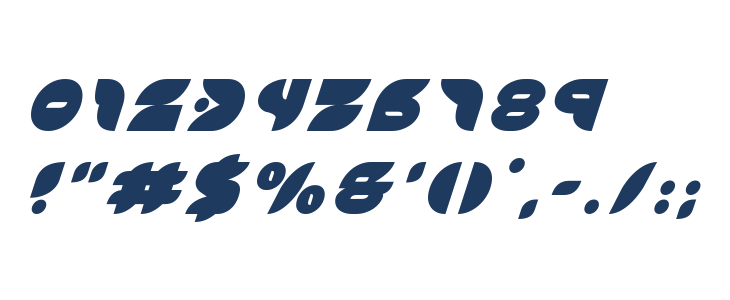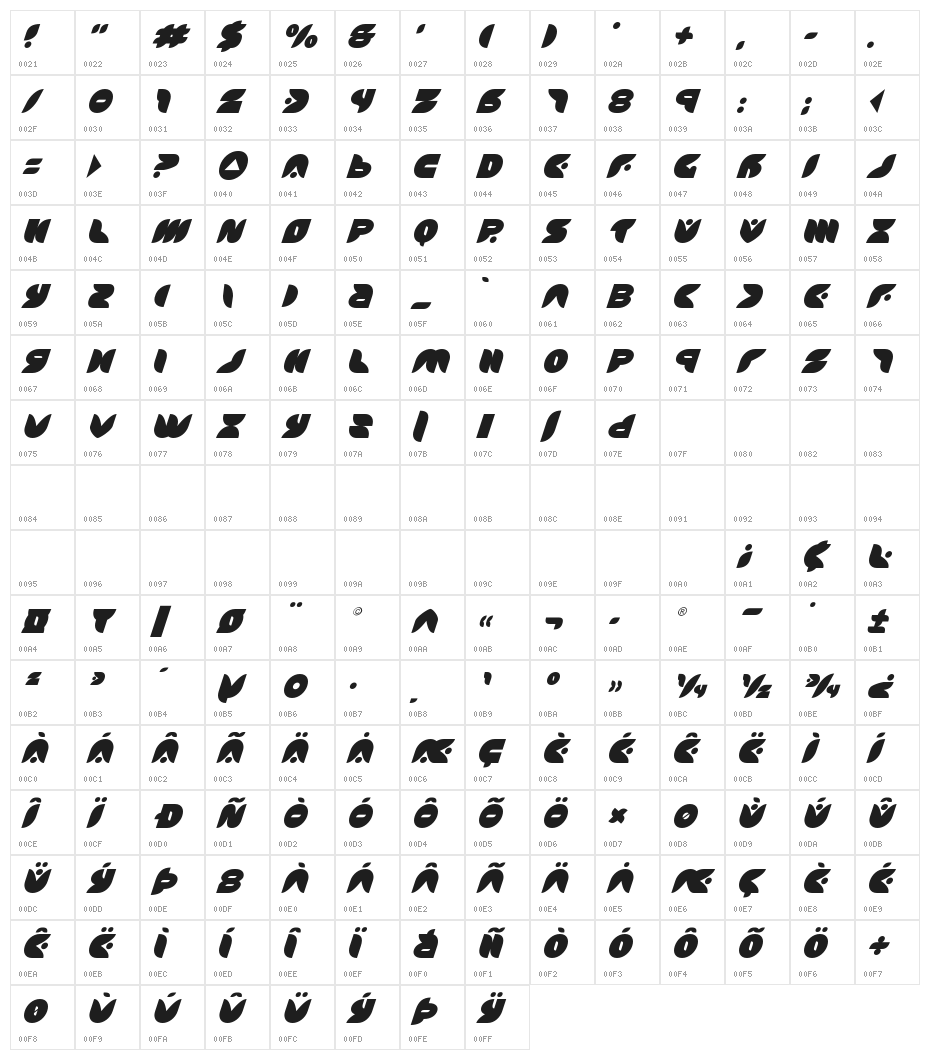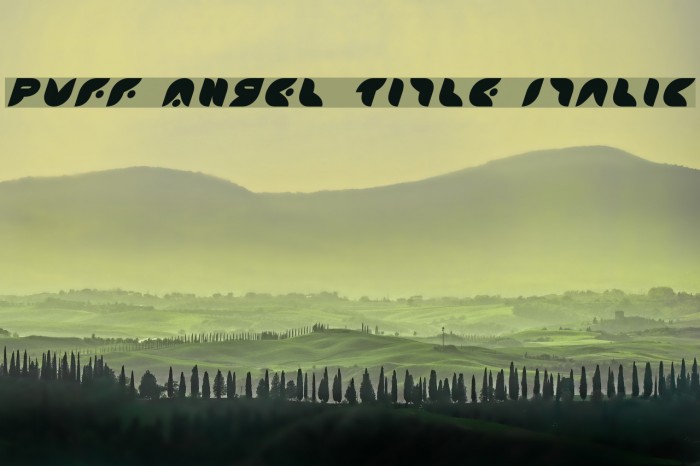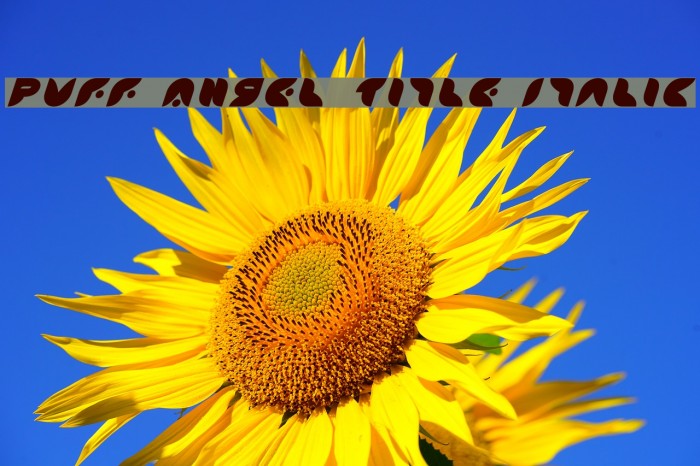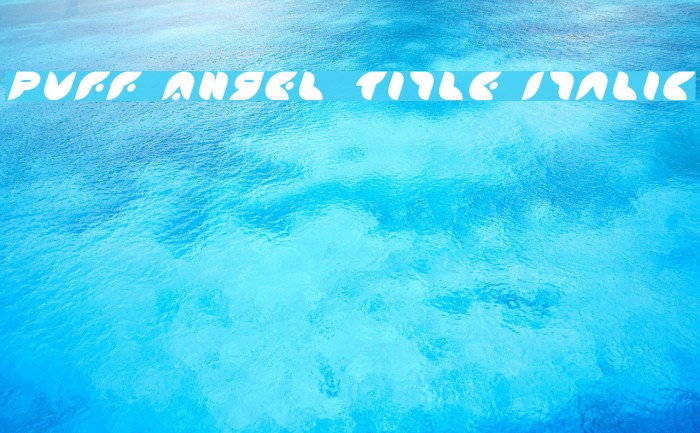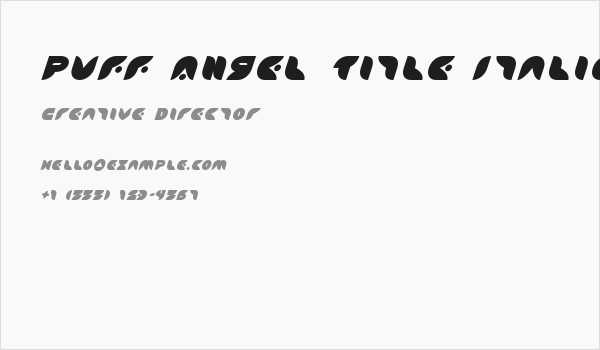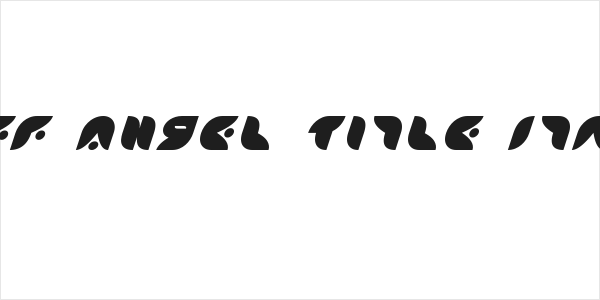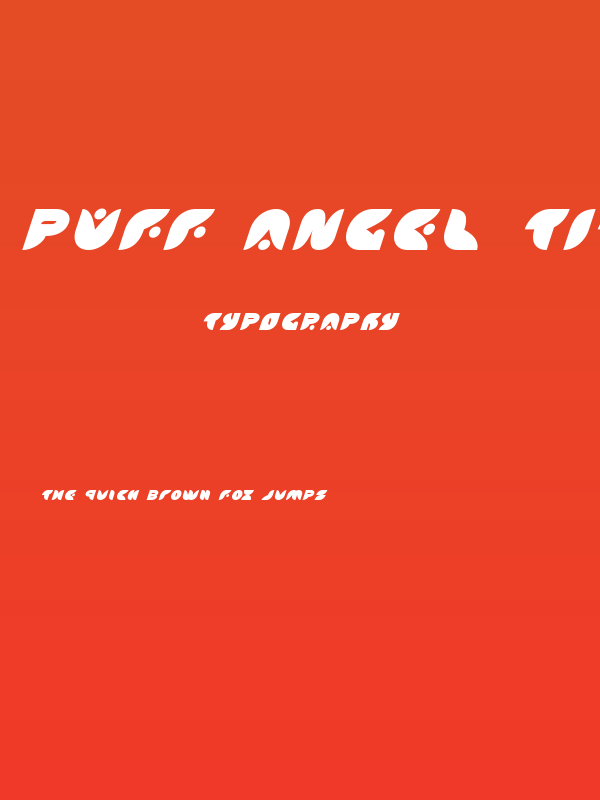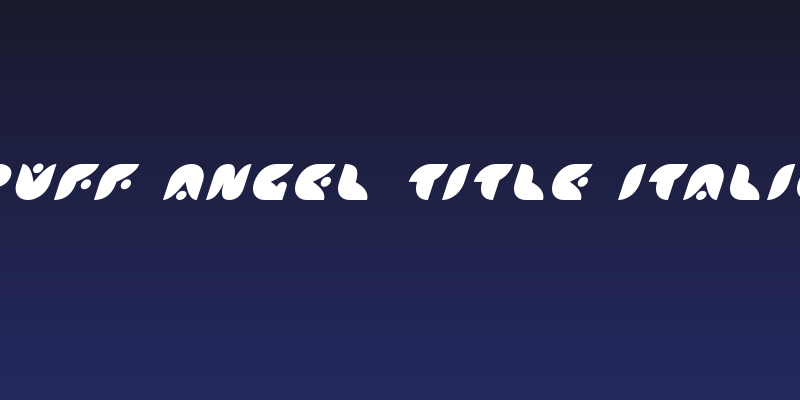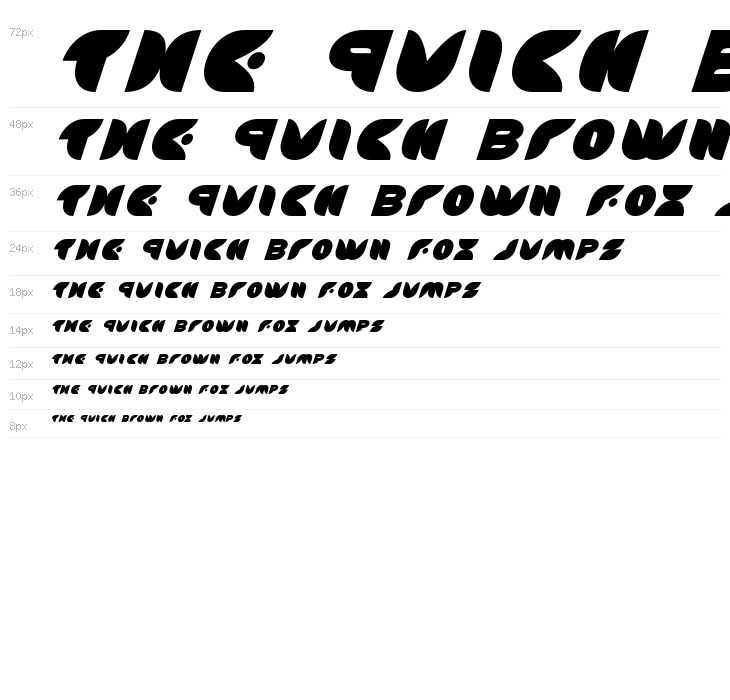
Puff Angel Title Italic Font
Puff Angel Title Italic Description
This font features a bold and playful design with a distinctly modern flair. The characters are heavily stylized with a puffed, rounded appearance, giving them a unique and eye-catching look. The italic slant adds a dynamic feel, enhancing the font's energetic and whimsical nature. The uppercase and lowercase letters maintain a consistent style, with smooth curves and a slightly condensed form. The numbers and special characters follow the same design principles, ensuring uniformity across all glyphs. This font's boldness and unique style make it suitable for creative and expressive projects.
Proposed ProjectsIdeal for branding, posters, children's books, and playful graphic design projects.